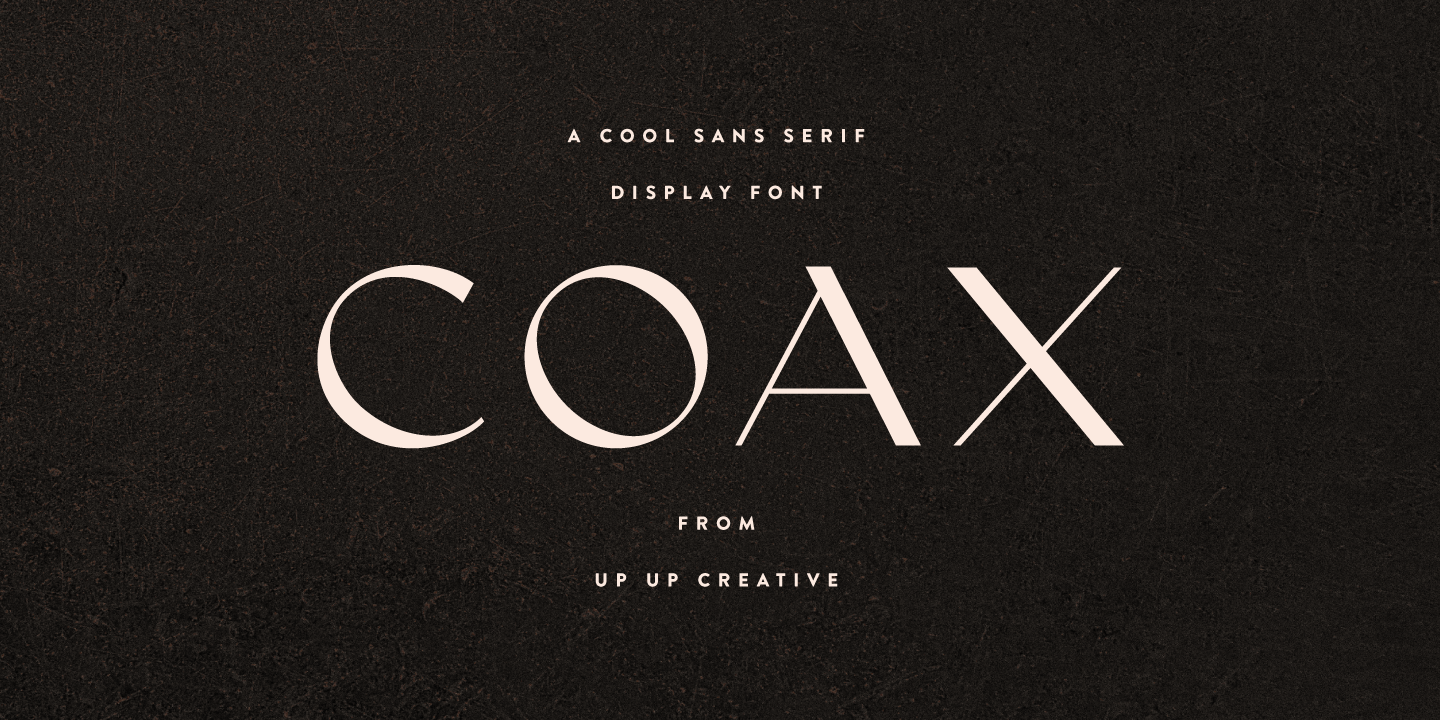
Coax Font excels in persuasive marketing campaigns, compelling sales presentations, influential negotiation materials, convincing proposal documents, charismatic speaker branding, strategic consulting logos, motivational seminar graphics, and persuasive communication training resources. Its compelling character makes it perfect for projects requiring influential messaging and persuasive authority.
What makes Coax Font exciting is its subtle yet powerful ability to influence and persuade through carefully engineered letterforms that gently guide readers toward desired conclusions with psychological precision. The strategic construction features smooth flowing curves with persuasive rhythm that creates trust and encourages positive response. This typeface embodies influential communication and persuasive excellence, making every design feel convincingly authoritative and irresistibly compelling.